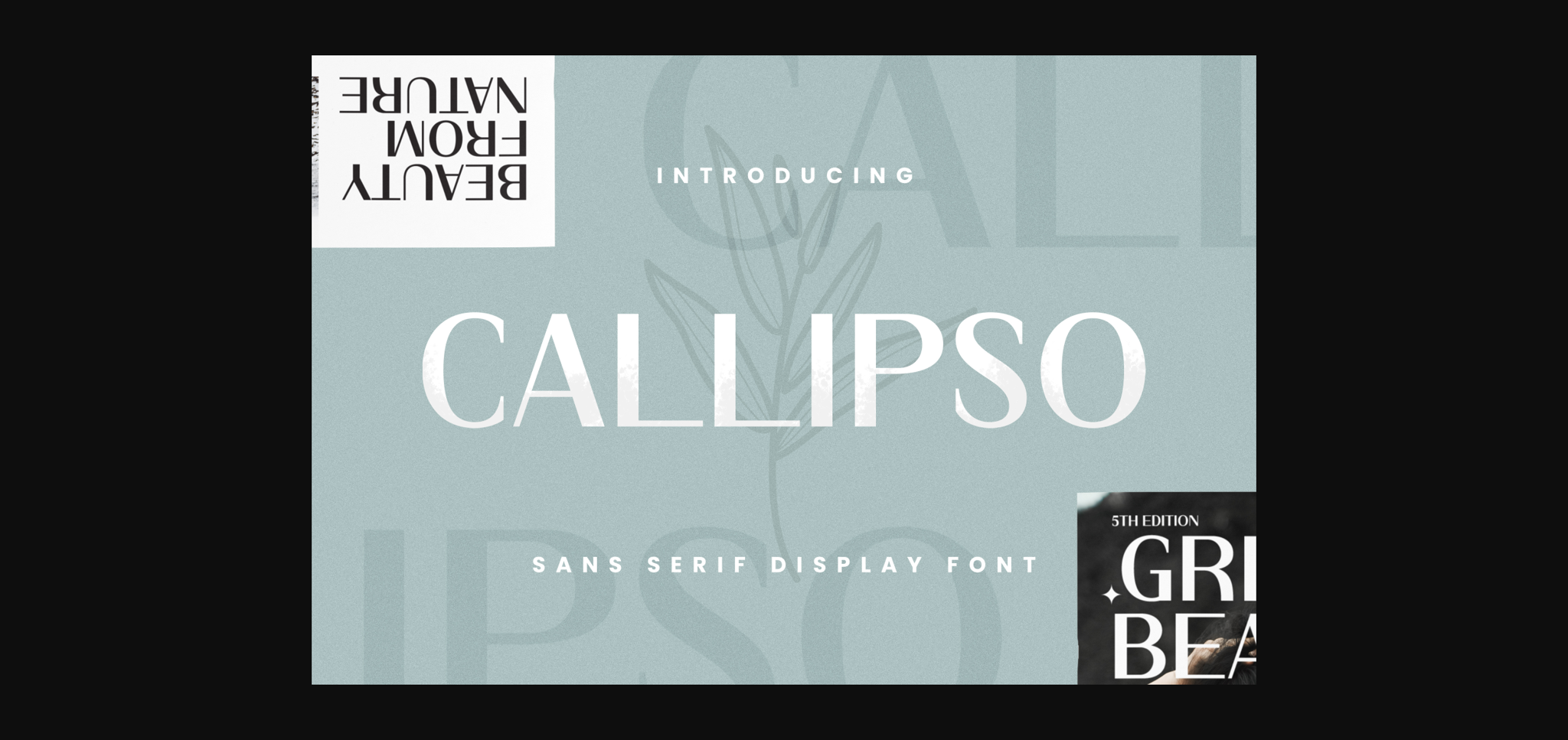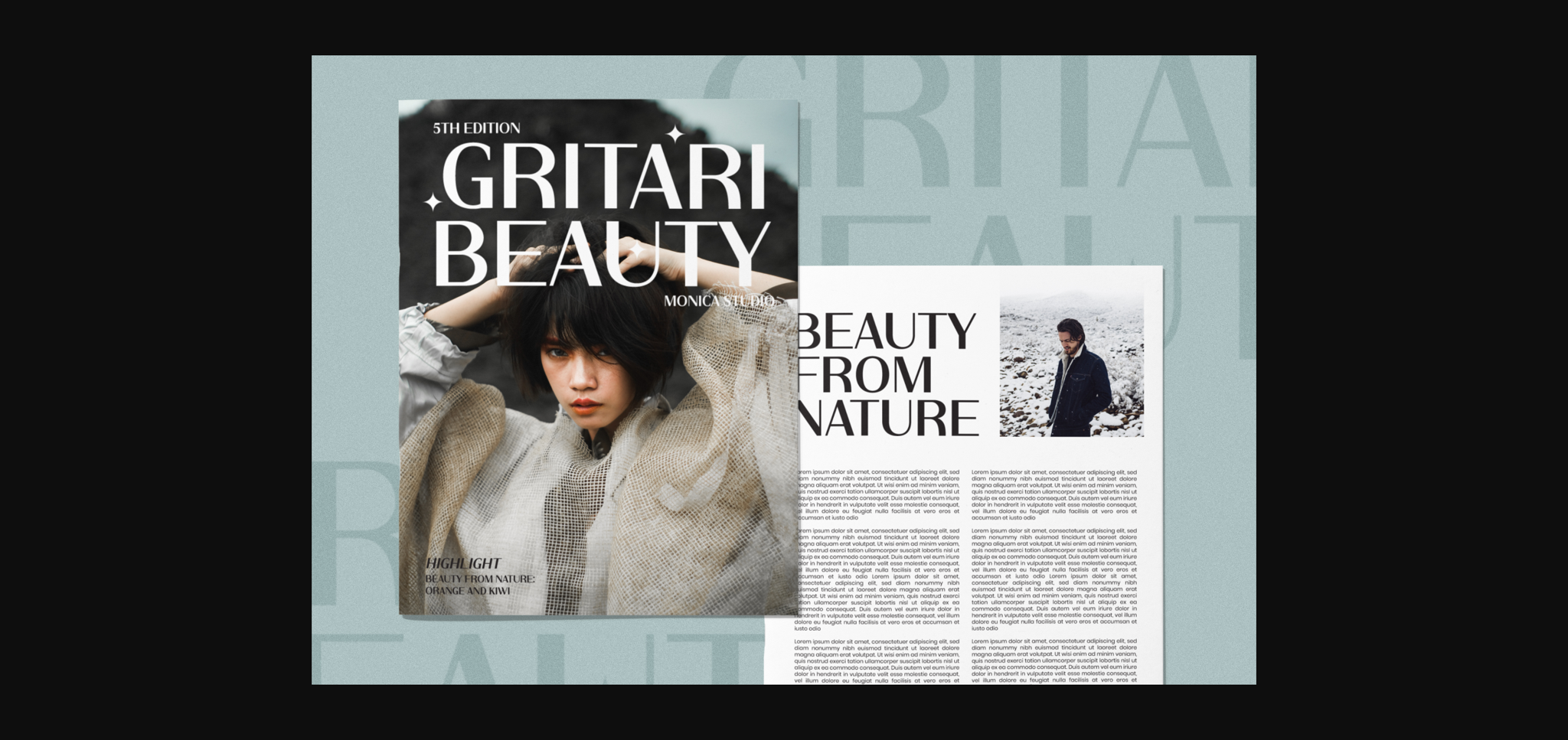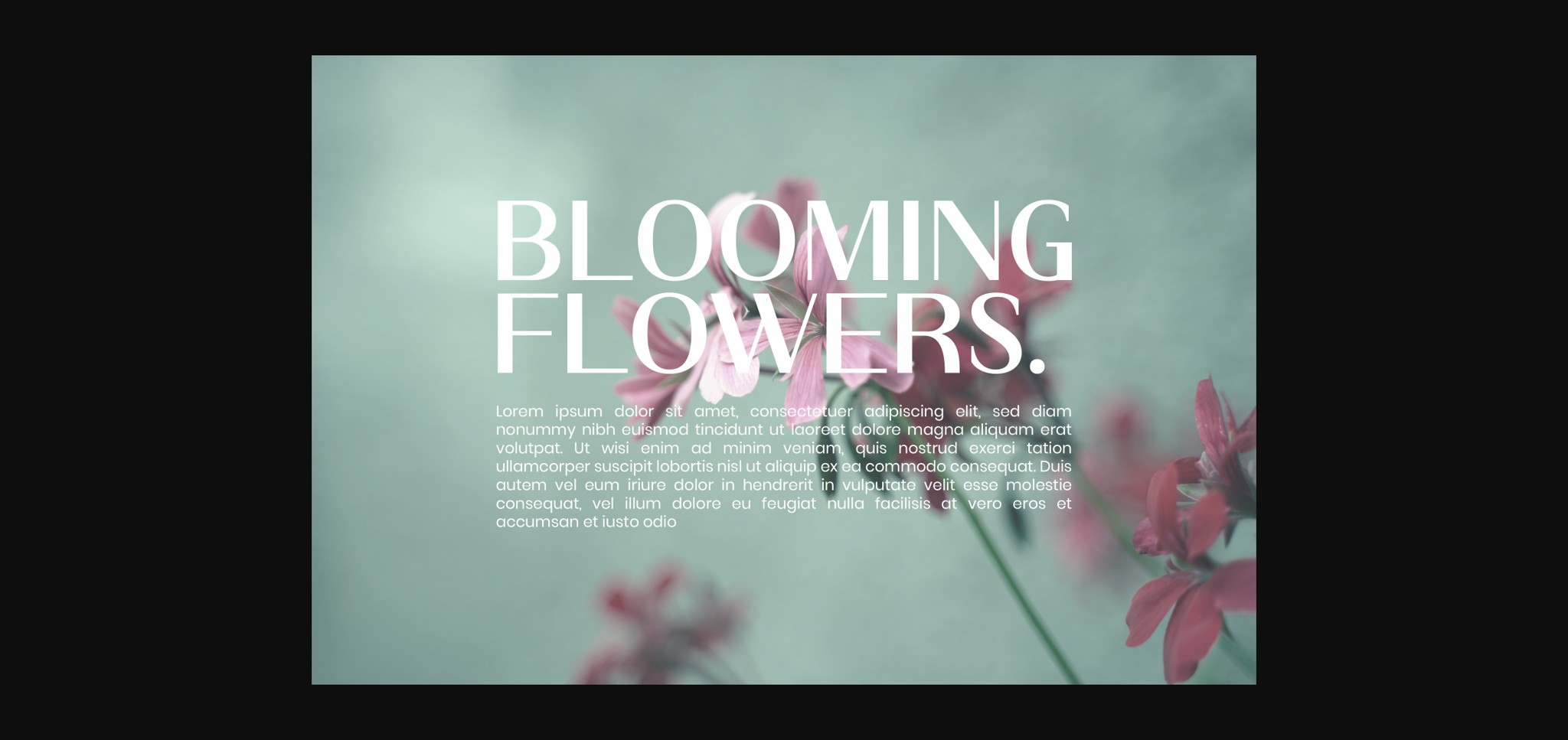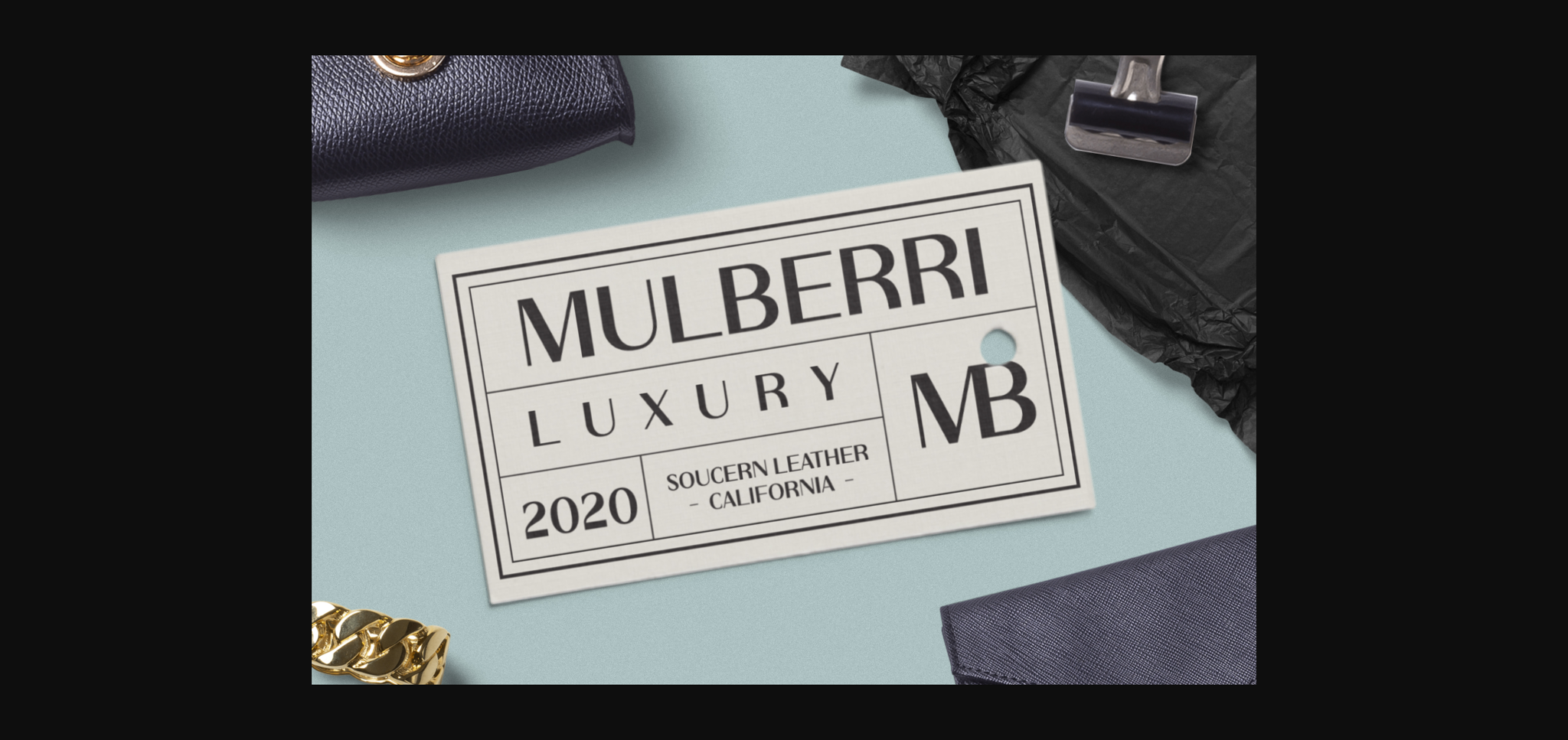
About Callipso Font
Callipso is a sans serif font with visual elegance, and smooth curves, making your work look attractive and elegant. A versatile font that works in both large and small sizes. This font is suitable for a wide variety of projects such as logos, invitations, branding, magazine, photography, card, product packaging, product mockup, mugs, quotes, posters, labels, signatures, editorials, websites, art deco, social media, and much more.